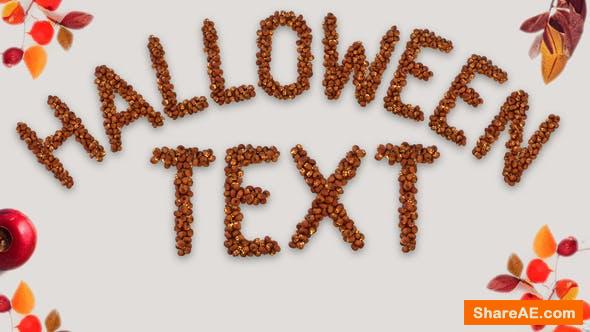
Videohive Halloween Particle Pumpkin Typeface
Pack of Halloween letters building up of multiple pumpkin lanterns with different faced. The pack contains: All letters from A-z Numbers 0-9 And 15 different symbols and punctuations